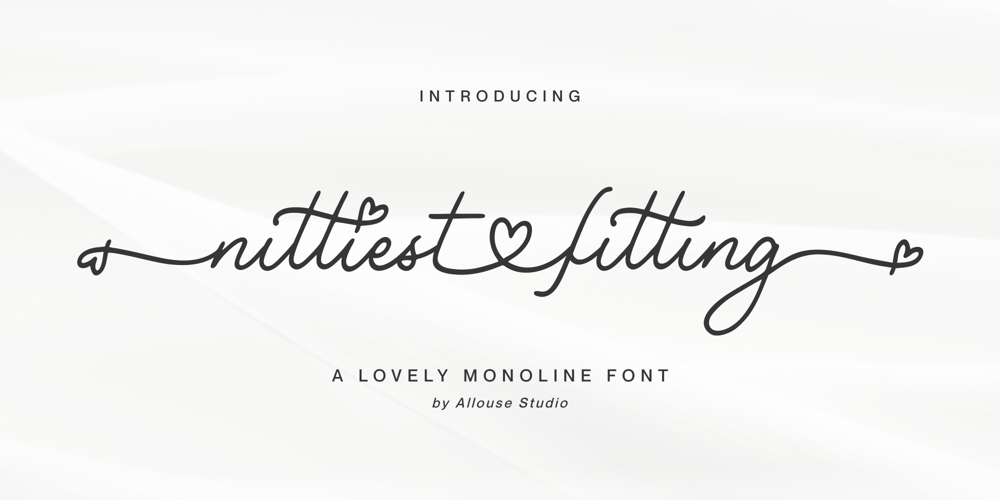
Nittiest Fitting Font Family was designed by Fachrizal Yusuf and published by Allouse Studio. Nittiest Fitting contains 1 styles and family package options. Proudly Presenting, Nittiest Fitting A Lovely Monoline Font.Nittiest Fitting is perfect for any titles, logo, product packaging, branding project, megazine, social media, wedding, or just used to express words above the background.Nittiest Fitting come with beginning and ending swash, connected heart swash, and also Multi-Lingual Support.We highly recommend using a program that supports OpenType features and Glyphs panels like many of Adobe apps and Corel Draw, so you can see and access all Glyph variations.Enjoy the font, feel free to comment or feedback, send me PM or email. Thank You!